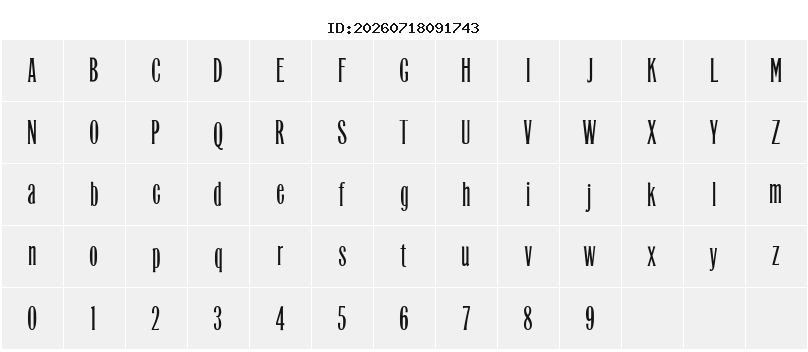
• Font Name: Cg
• Full Font Name: CgMiehleCondensed
• PostScript Name: CgMiehleCondensed
About Cg.ttf
Cg.ttf is a modern, elegant sans-serif font designed for ultimate readability and visual harmony. Perfect for branding, headlines, web design, and print materials.